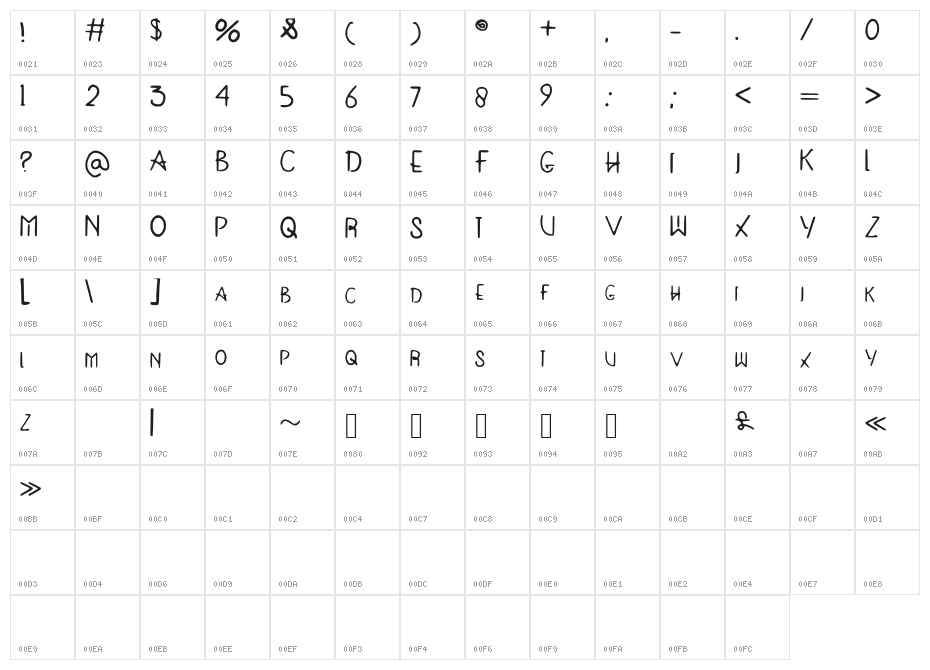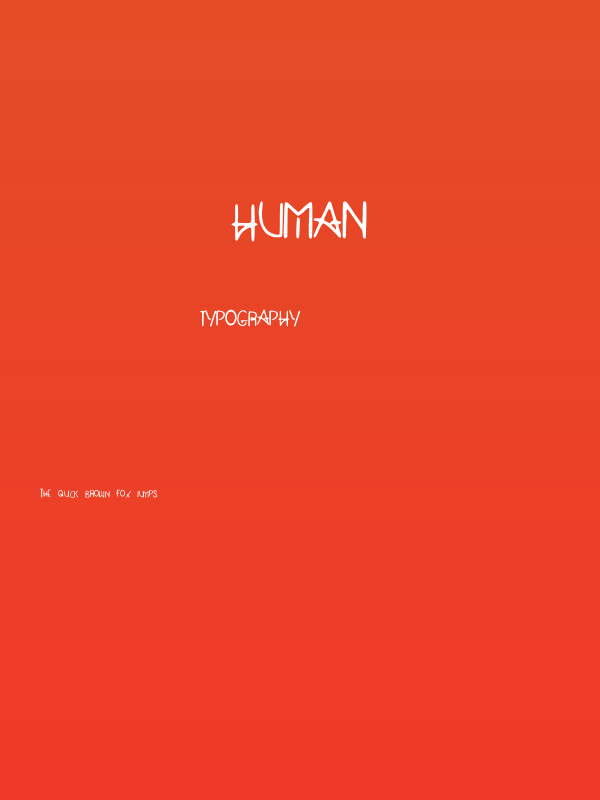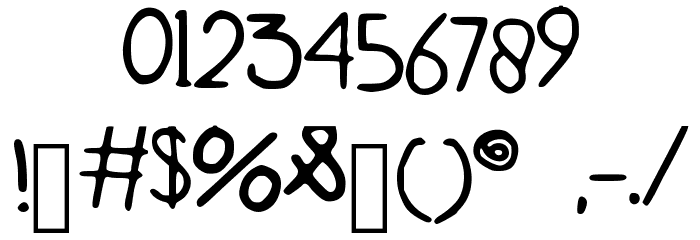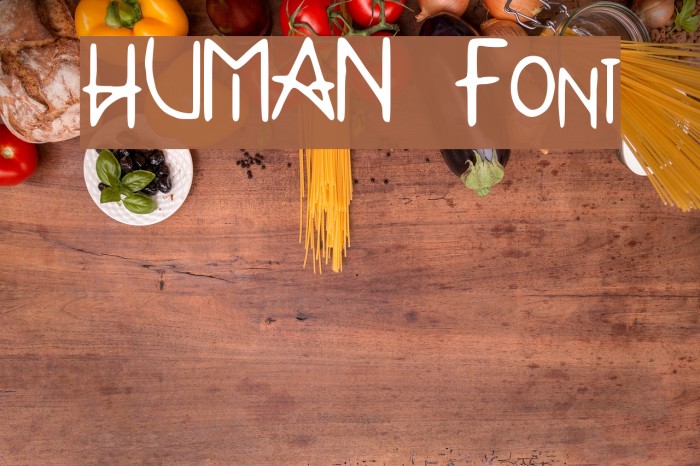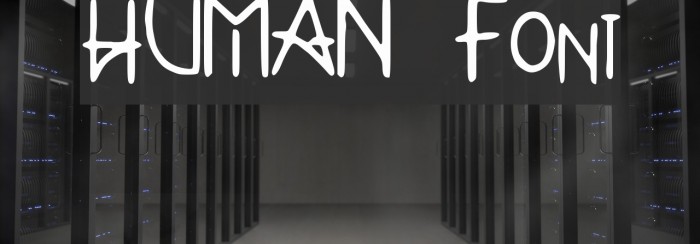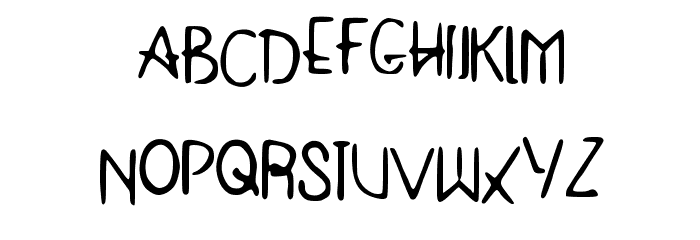
HUMAN Font
HUMAN Description
This font features a playful and whimsical design with a hand-drawn aesthetic. The characters are slightly irregular, giving it a unique and informal appearance. The uppercase and lowercase letters maintain a consistent style, with rounded edges and a casual flow. The numbers and special characters follow the same playful theme, making the font suitable for creative and fun projects. The overall look is approachable and friendly, ideal for designs that aim to convey a sense of joy and creativity.
| Proposed Projects | Ideal for children's books, greeting cards, playful branding, and creative posters. |